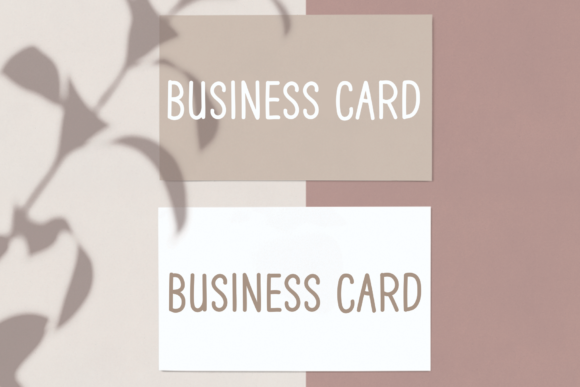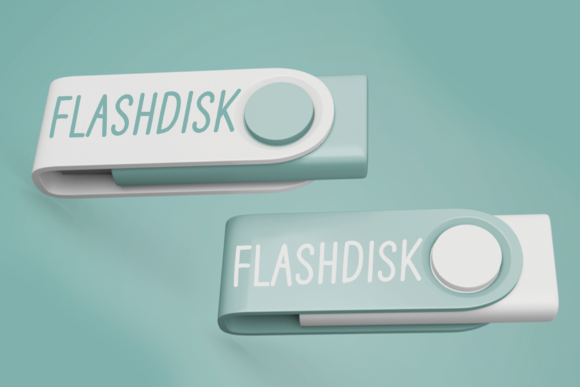
Sleep Night Font
db-ku.com - Script & Handwritten -- Sleep Night is a sweet and natural handwritten font. This simple font will look gorgeous on a variety of design ideas. It will add a joyful and romantic touch to each of your projects!